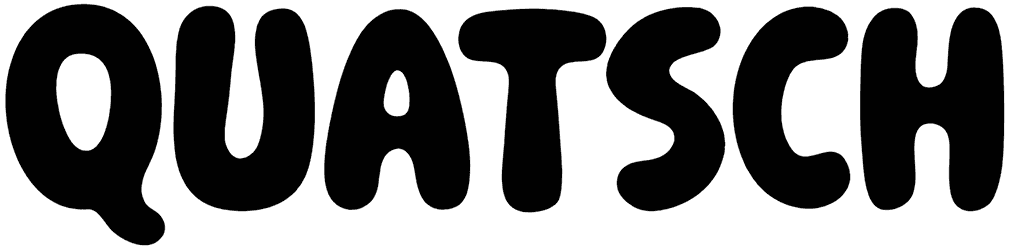
Quatsch Font
For when you need to enter a playful and friendly image in your kid’s layout frame, nothing is more appealing than a cartoon font ornamented in rounded chunky letters.
Here, Quatsch, like many other fancy fonts in our RB library, gives the OK to highlight many animations, headlines of posters, greeting cards, and book covers through its happiness, vividness. Sure thing, the absence of numbers cannot make any trouble to drive your writing style to the high point.
Introducing QUATSCH! This charming fresh typeface is organic and friendly with an extensive variety of characters, both upper case and lower case. The font QUATSCH supports languages like English, French, German, Italian, Spanish, Portuguese, Turkish, Polish and Swahili. In total more than 290 major, medium or minor languages based on the Roman alphabet.